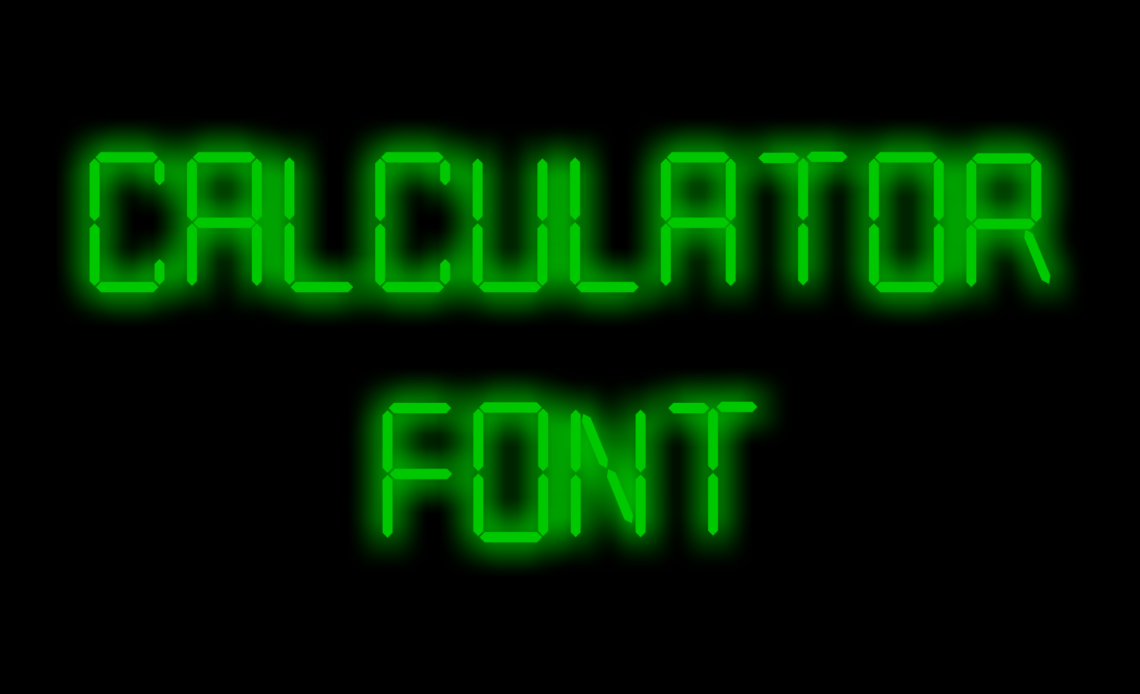
Prepare your designs to stand out with Calculator Font, a vintage-inspired display font that takes you back to the days of pocket calculators. This distinctive font, crafted by The Polish Apple, exudes a retro charm that's sure to make a lasting impression on your audience.
With its bold and quirky character, Calculator Font is your perfect choice for creating eye-catching designs that evoke nostalgia. Whether you're working on flyers, posters, social media graphics, or even t-shirt designs, this font adds an instant touch of personality and uniqueness.
Dive into the realm of creativity and let Calculator Font unleash your imagination. Its versatility knows no bounds, allowing you to craft designs that speak to the heart and captivate the eye. From retro-themed projects to modern layouts, this font seamlessly adapts to your creative vision, delivering results that are both striking and impactful.
Don't settle for ordinary fonts that blend in the crowd. Embrace the extraordinary with Calculator Font. Its distinct style and captivating charm will elevate your designs, making them stand out from the noise and leaving an unforgettable mark on your audience. Whether you're a seasoned designer or just starting out, Calculator Font is your key to unlocking a world of creative possibilities.
So, step into the world of retro elegance and download Calculator Font today. Let your designs take center stage, captivating audiences with their unique charm and timeless appeal. Calculator Font: Your gateway to creating designs that resonate, connect, and leave a lasting impression.